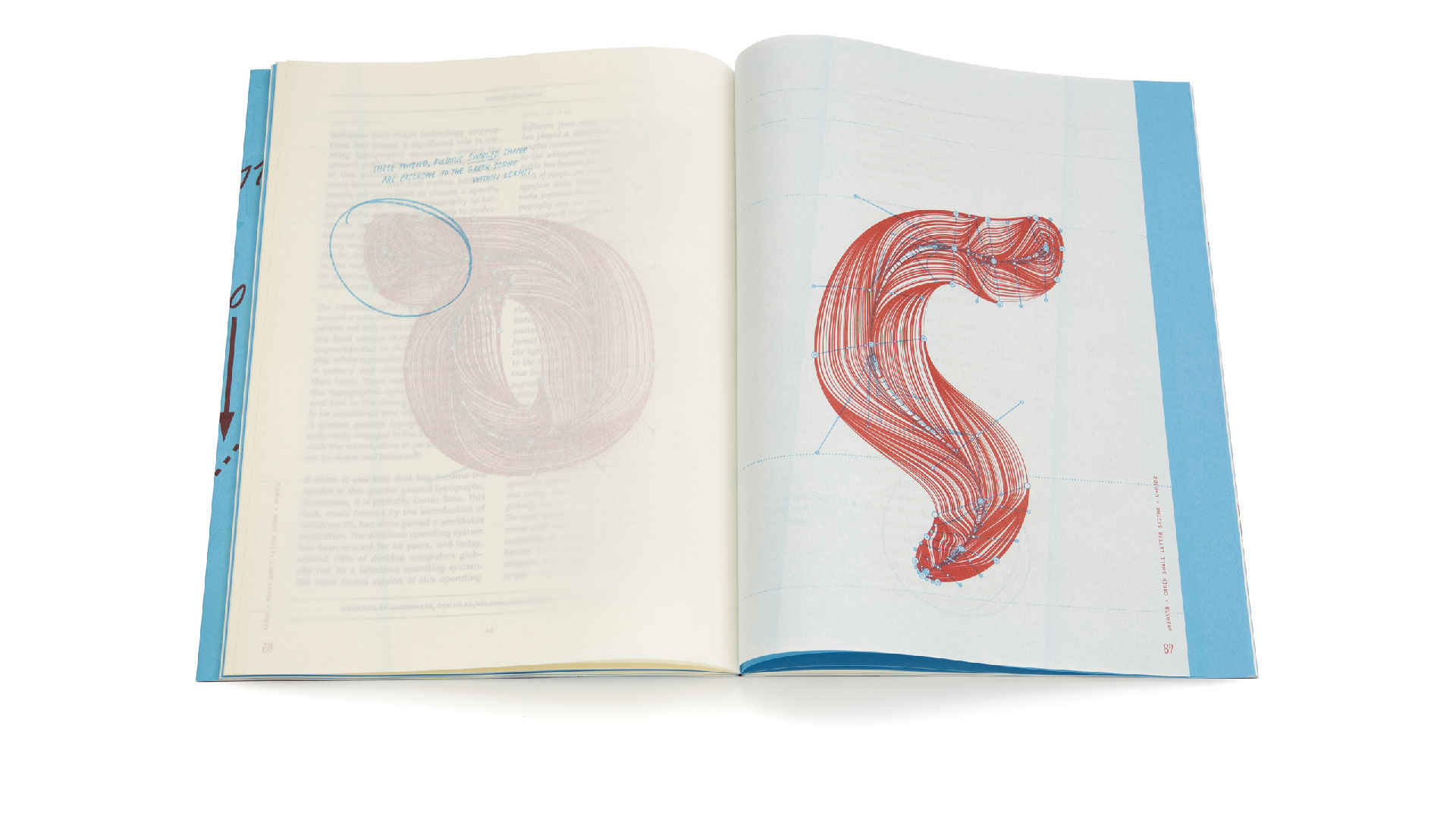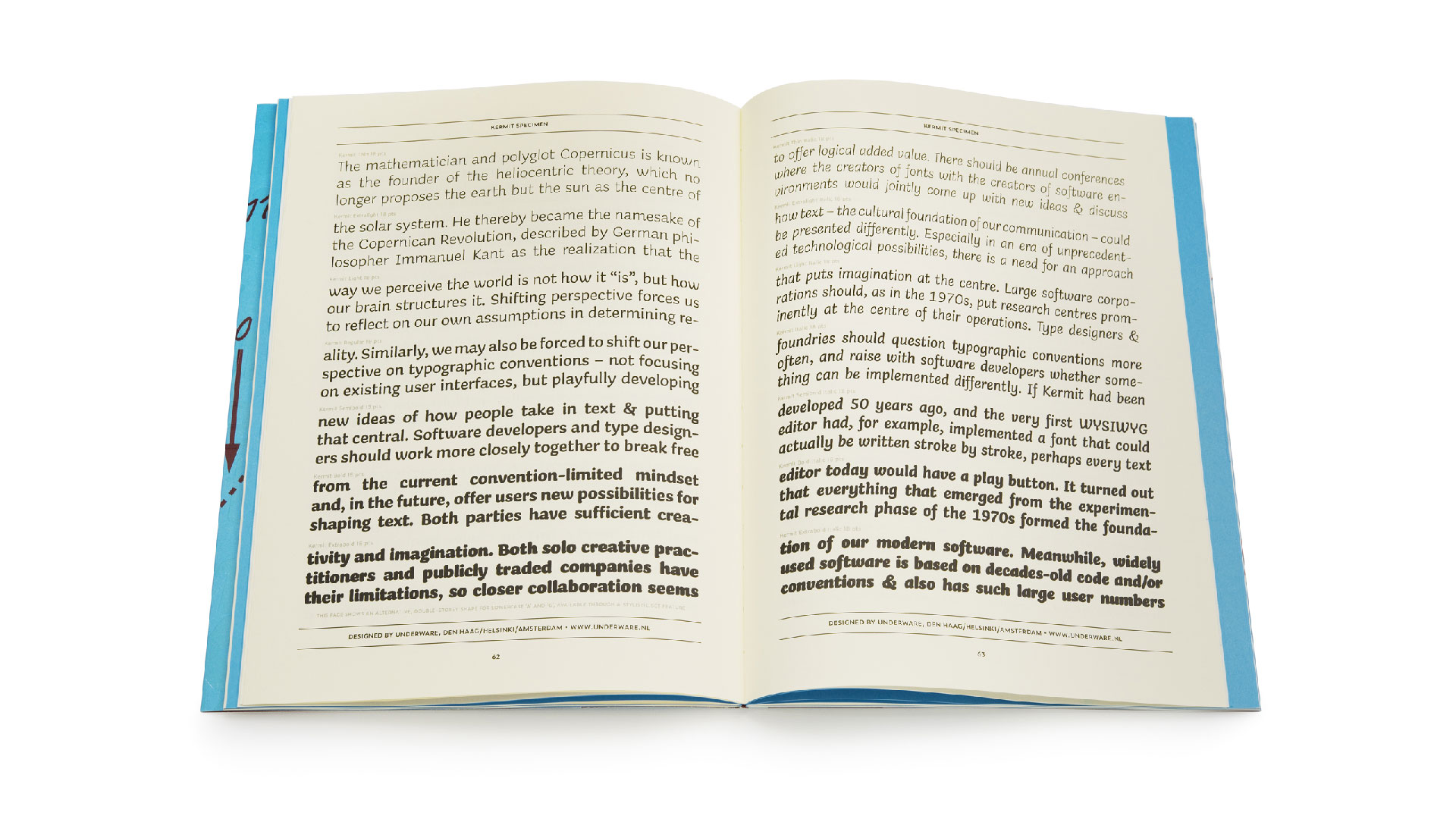
We are pleased to announce a new publication: Time to play. This publication focuses on the font Kermit, which we designed for Microsoft. This font was developed for kids, so it makes sense that this publication has a playful approach. In addition, Kermit is a writable font, with the time dimension designed and added to the font, which functions best if a play button is incorporated in the interface. In short: it’s time to play.
The publication consists of 3 different parts: an editorial where 3 articles place the genesis of Kermit in the context of historical and contemporary typographic developments. The articles are written by Rob McKaughan (Microsoft), Underware and Gerry Leonidas. In addition, there is a second section consisting of a traditional type specimen of the Kermit family. And there is a third part consisting of grammatographic anatomical illustrations. Each section is printed on a different type of paper, and these 120 pages are playfully mixed together by means of a clever imposition scheme. The whole edition was printed in 4 PMS colours, the cover fitted with an extra glossy silkscreen print, and all this was finished by means of a Swiss binding. You want to feel this tactile tickles in your hands. We have spared no expense to make this a playful publication.